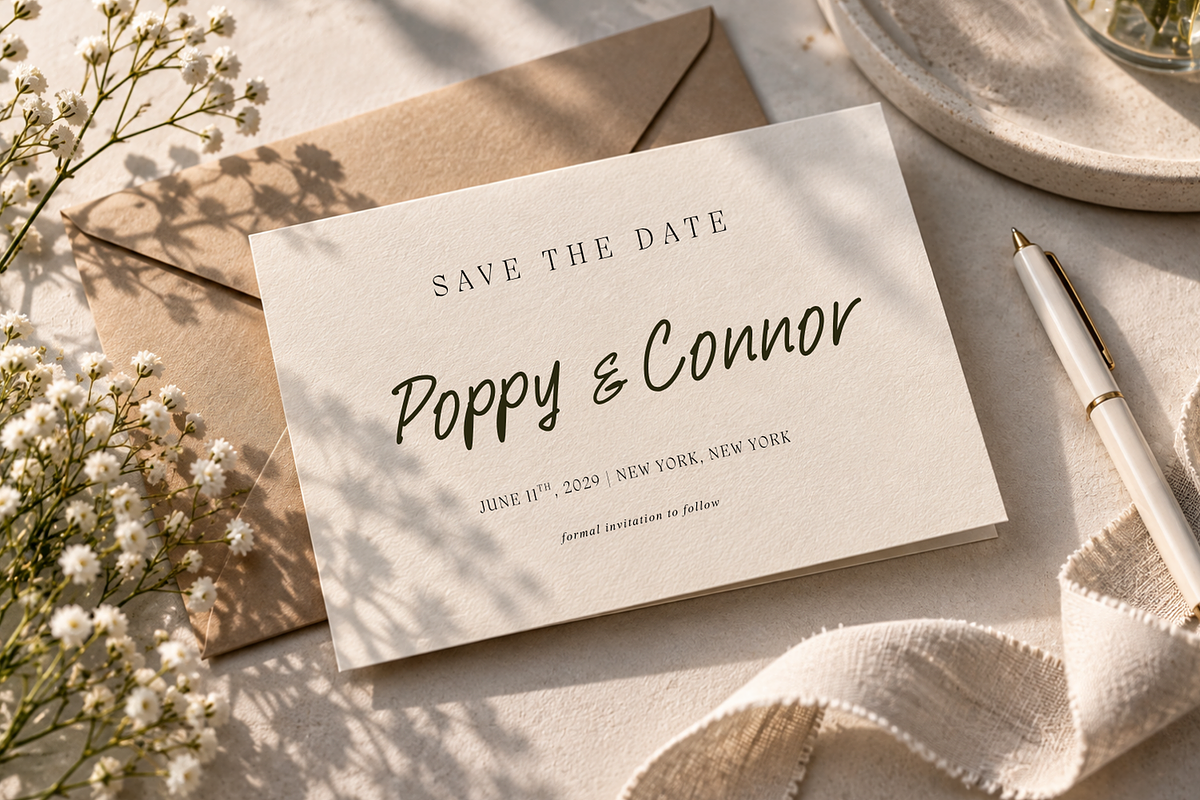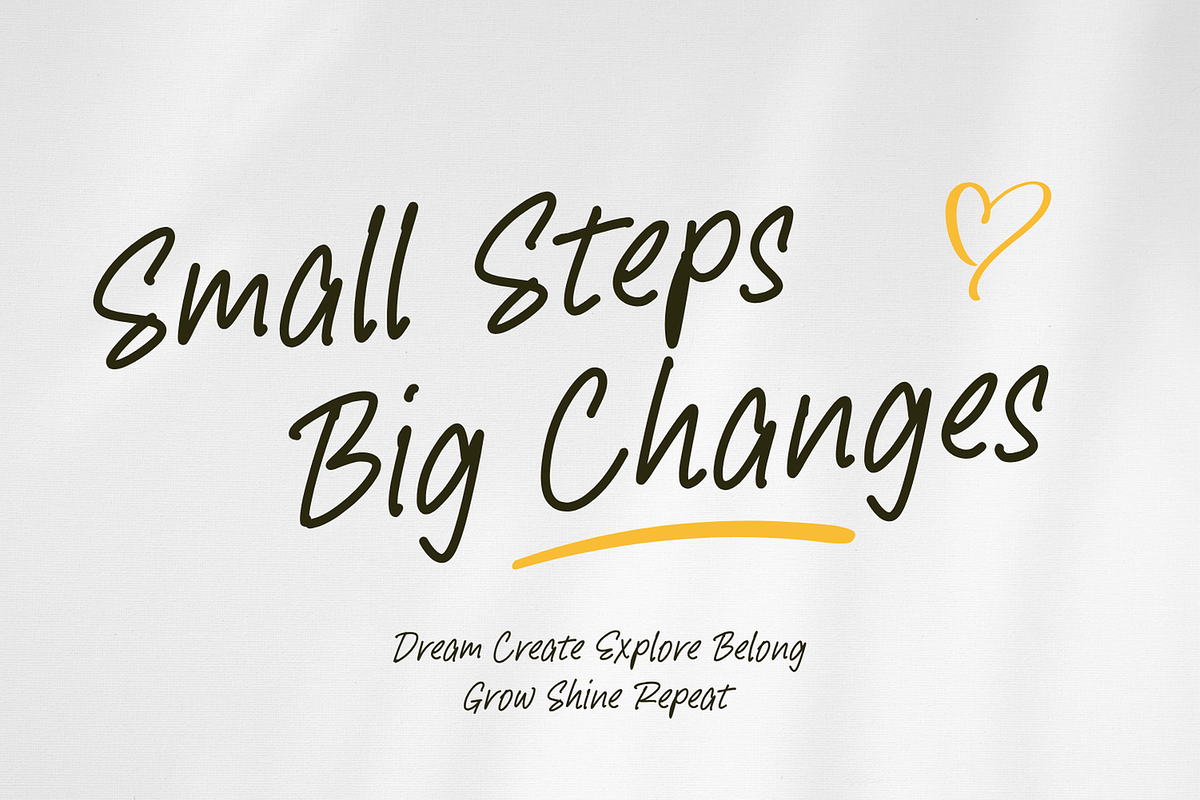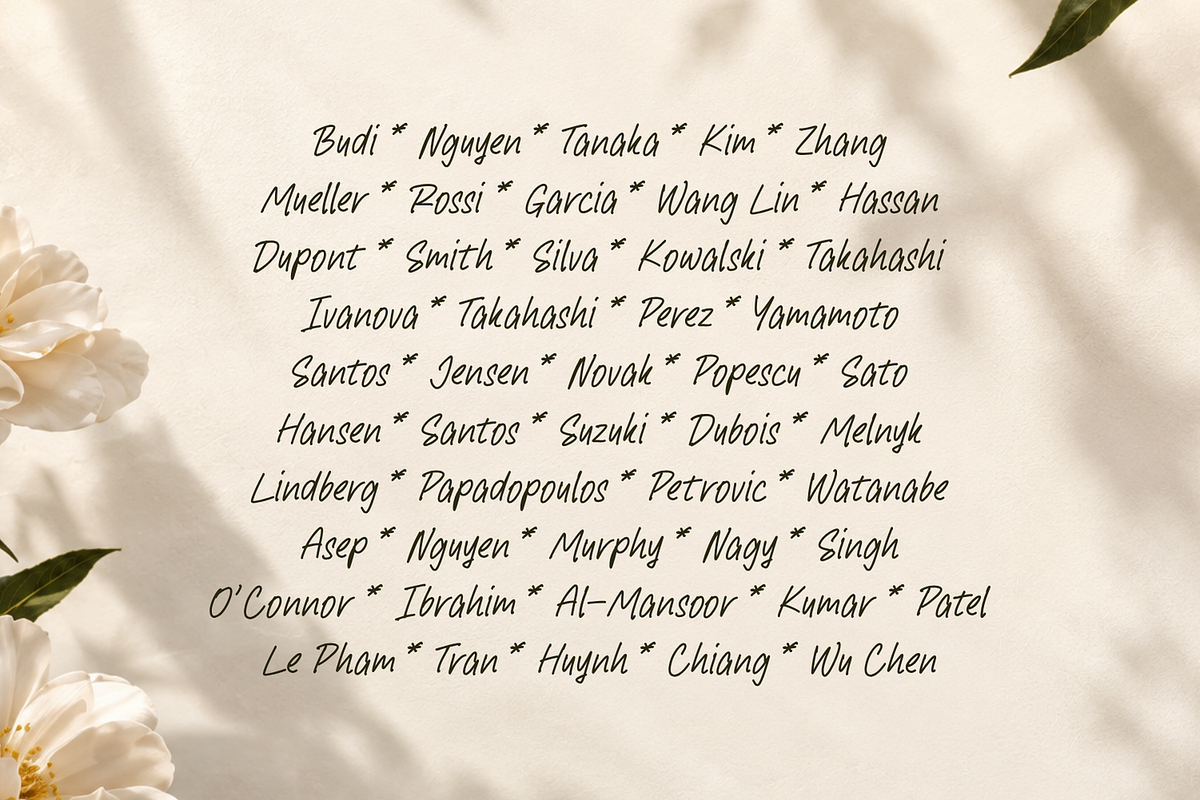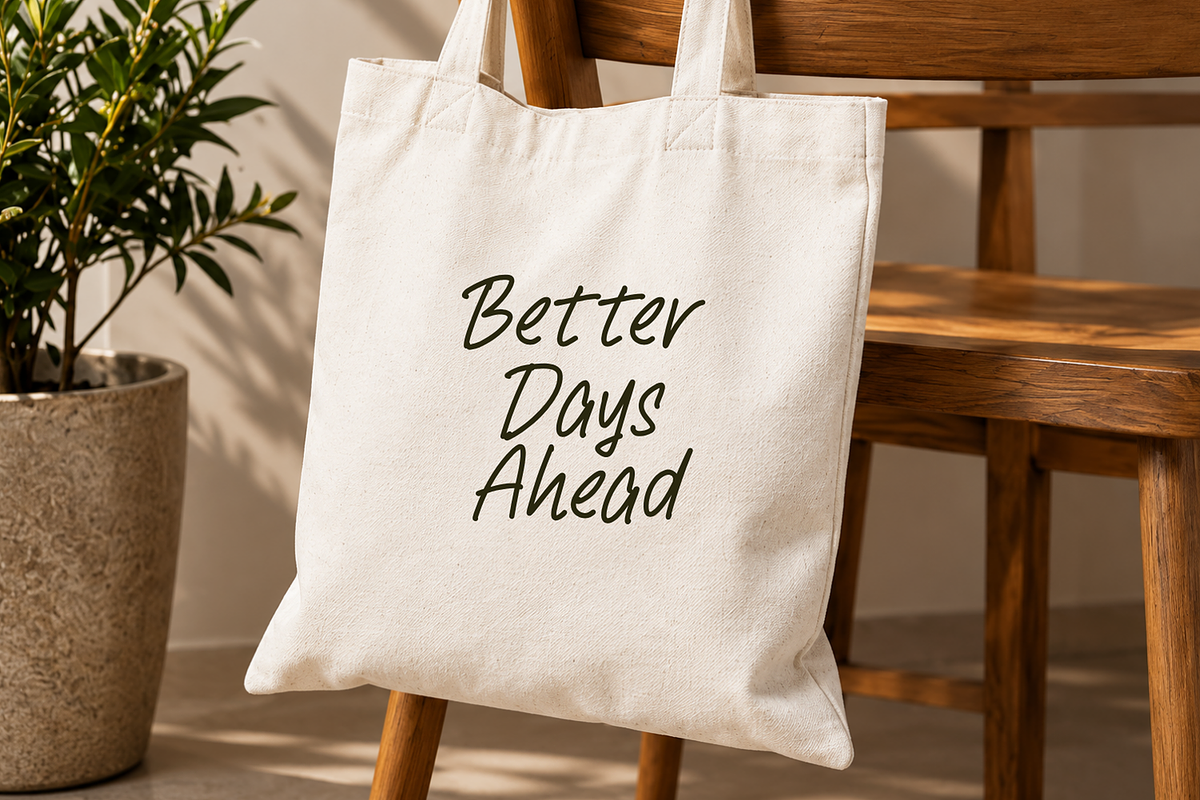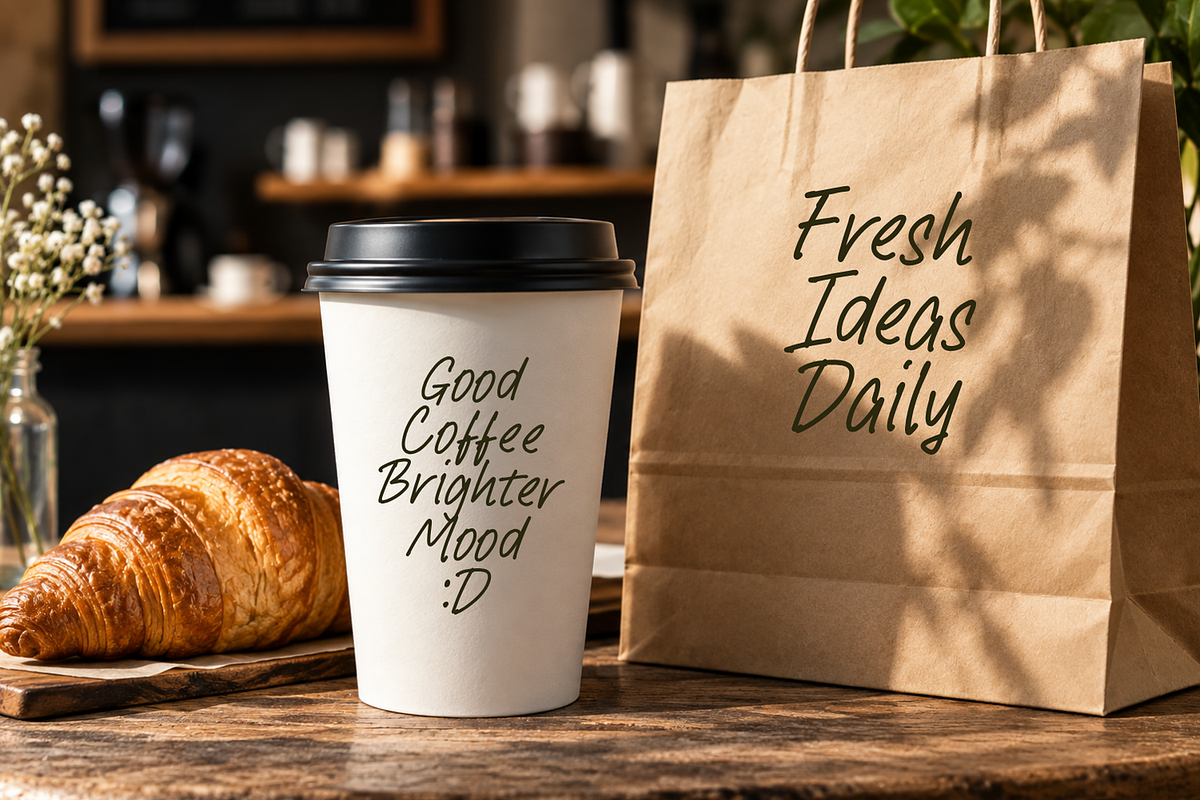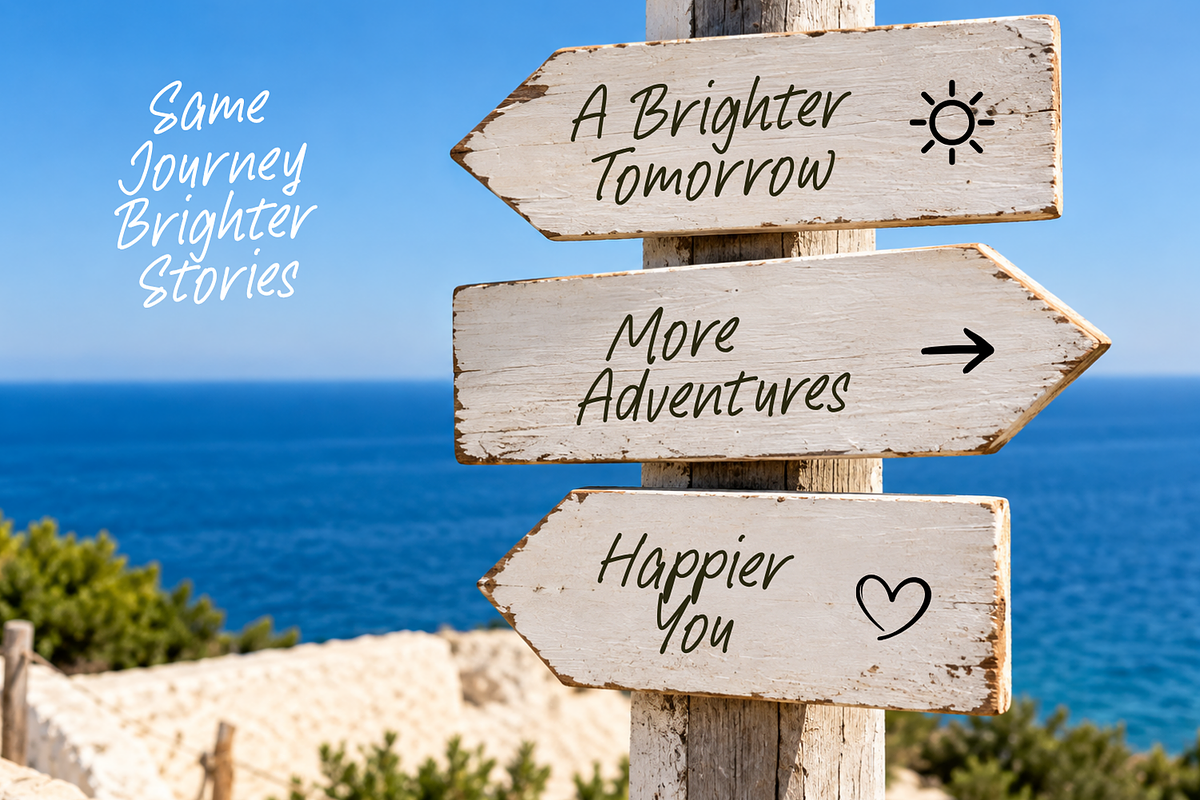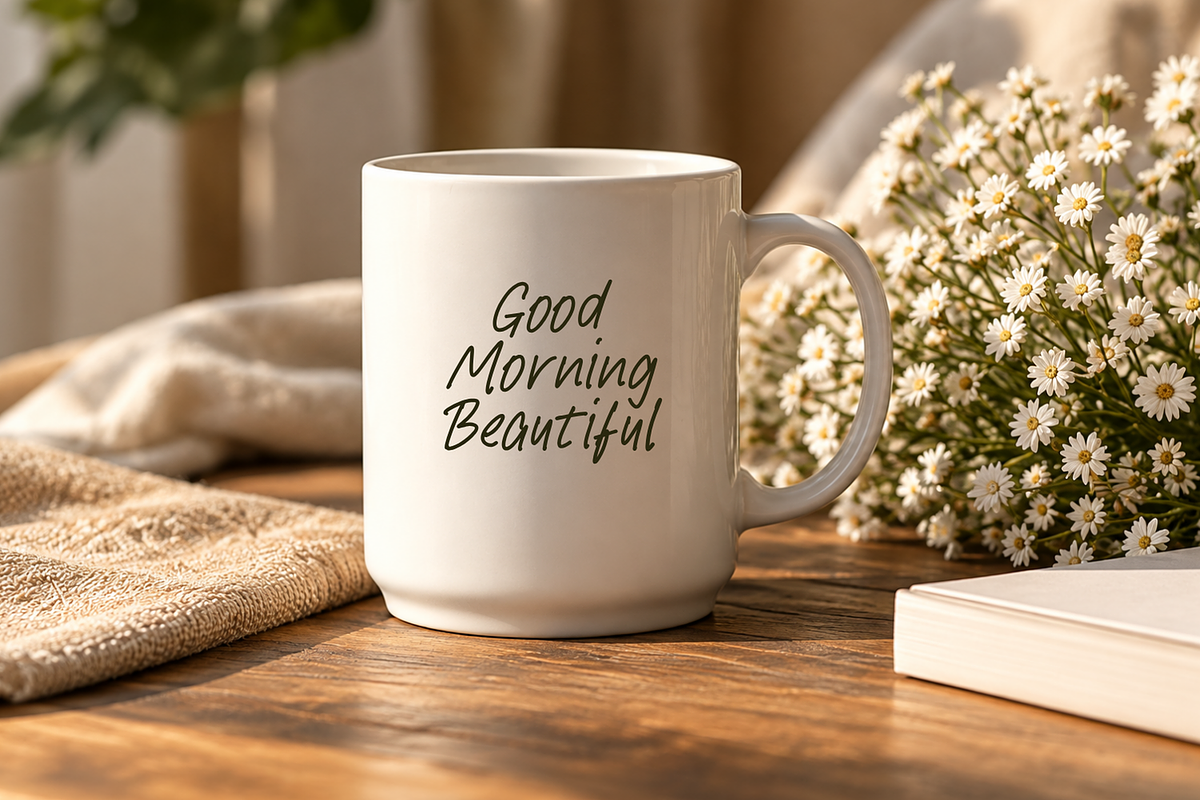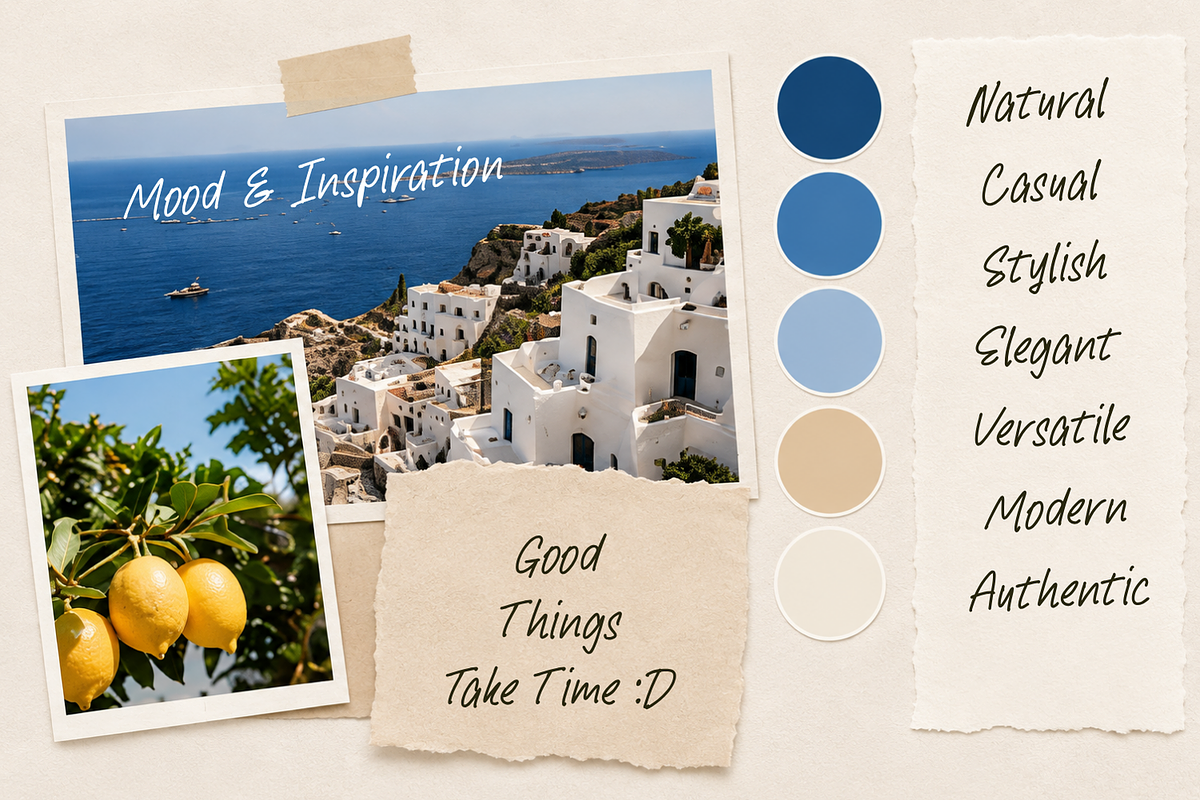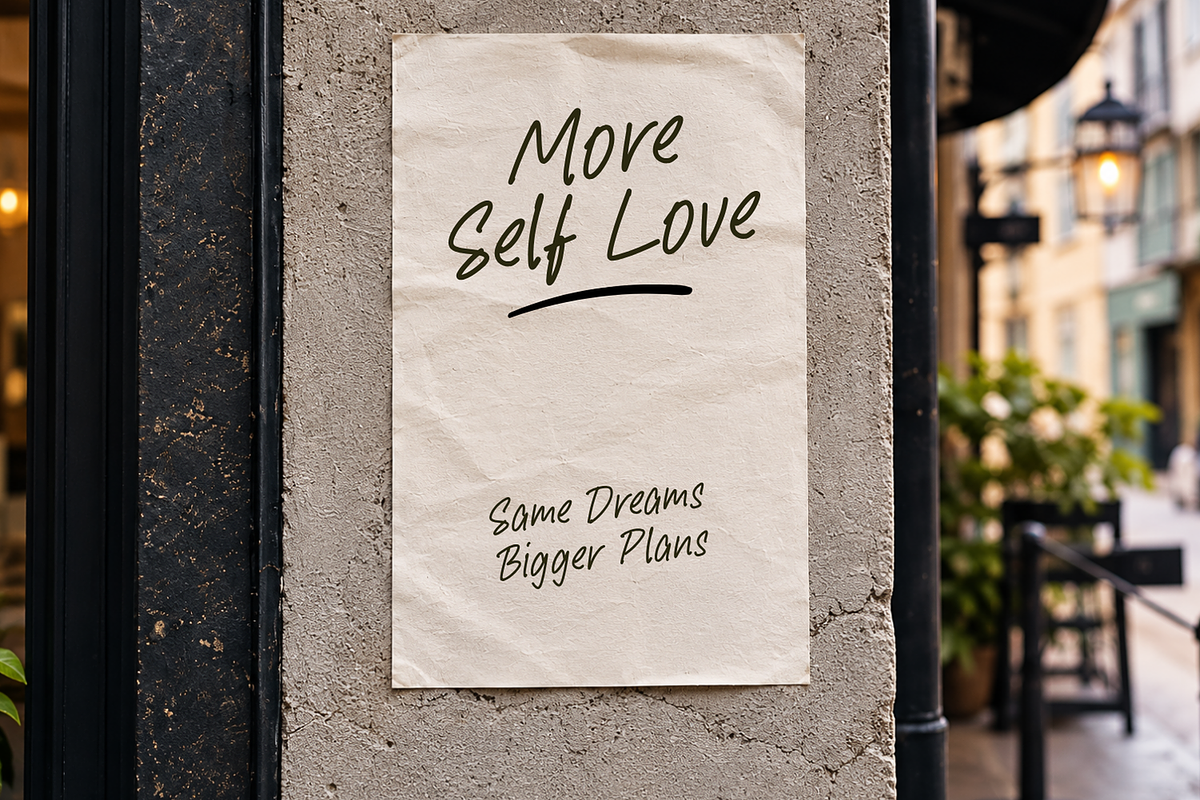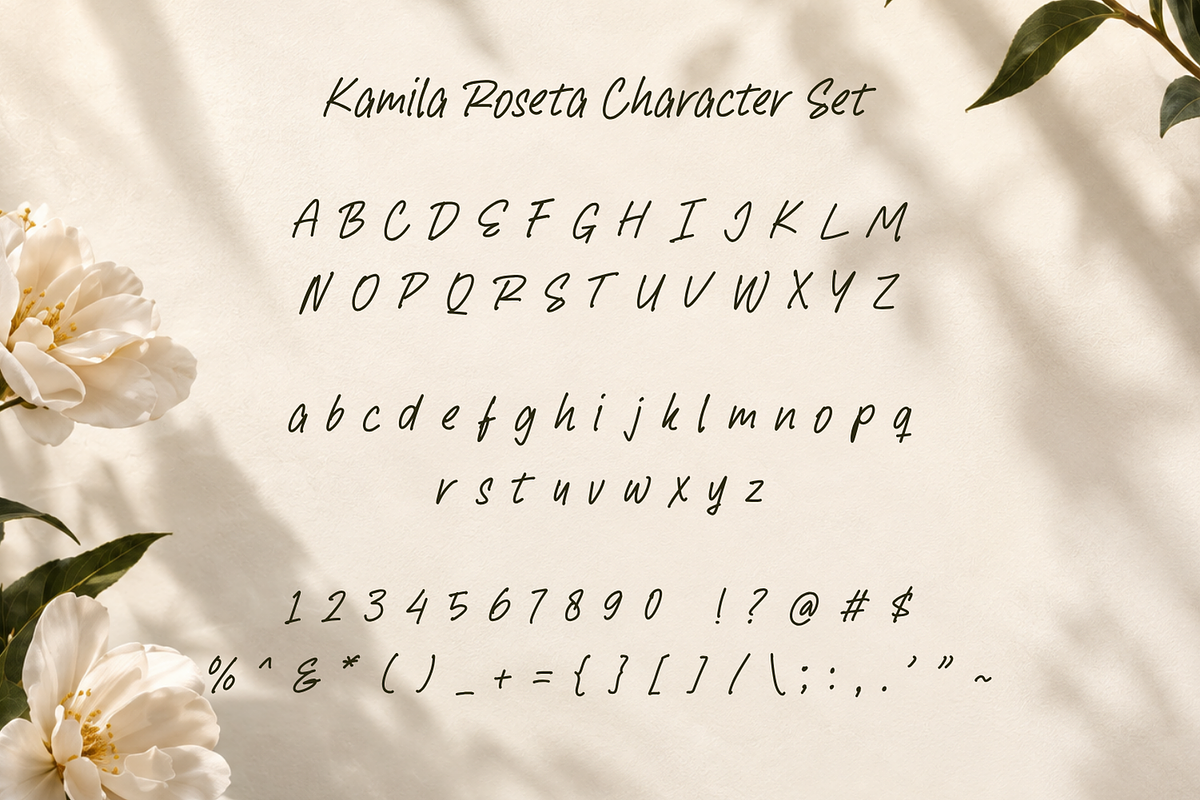
Kamila Roseta – Handwritten Font
Kamila Roseta is a natural handwritten script font designed to bring an authentic, casual, and stylish personality to creative projects. Its flowing letterforms, organic strokes, and relaxed handwritten character create a warm and personal feel while remaining versatile and easy to use.
The font is ideal for branding, logos, packaging, apparel, stationery, social media graphics, posters, greeting cards, invitations, lifestyle products, café branding, and editorial designs. Its expressive handwritten appearance works especially well when you want a design to feel personal, modern, friendly, and authentic.
Kamila Roseta includes uppercase letters, lowercase letters, numerals, and punctuation, making it practical for both short display text and longer creative compositions. The natural handwritten style makes it particularly suitable for brands focused on lifestyle, fashion, beauty, wellness, travel, food & beverage, handmade products, and creative businesses.